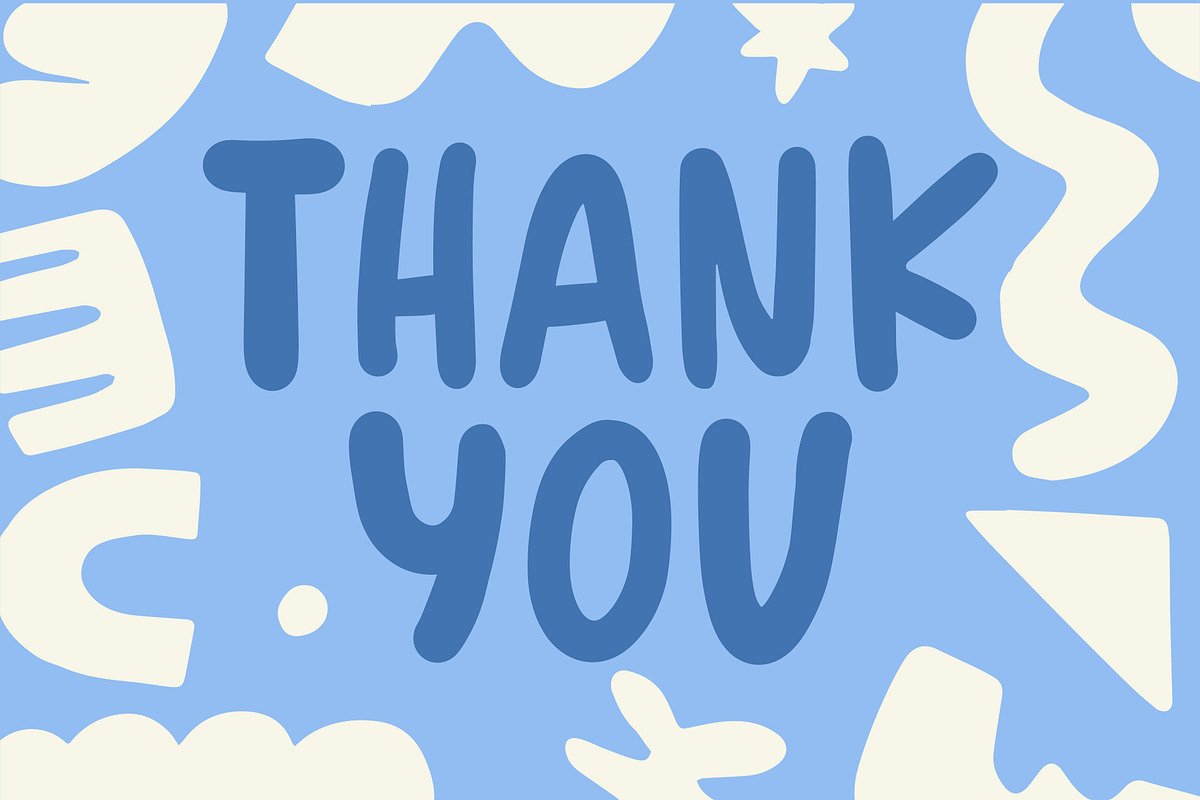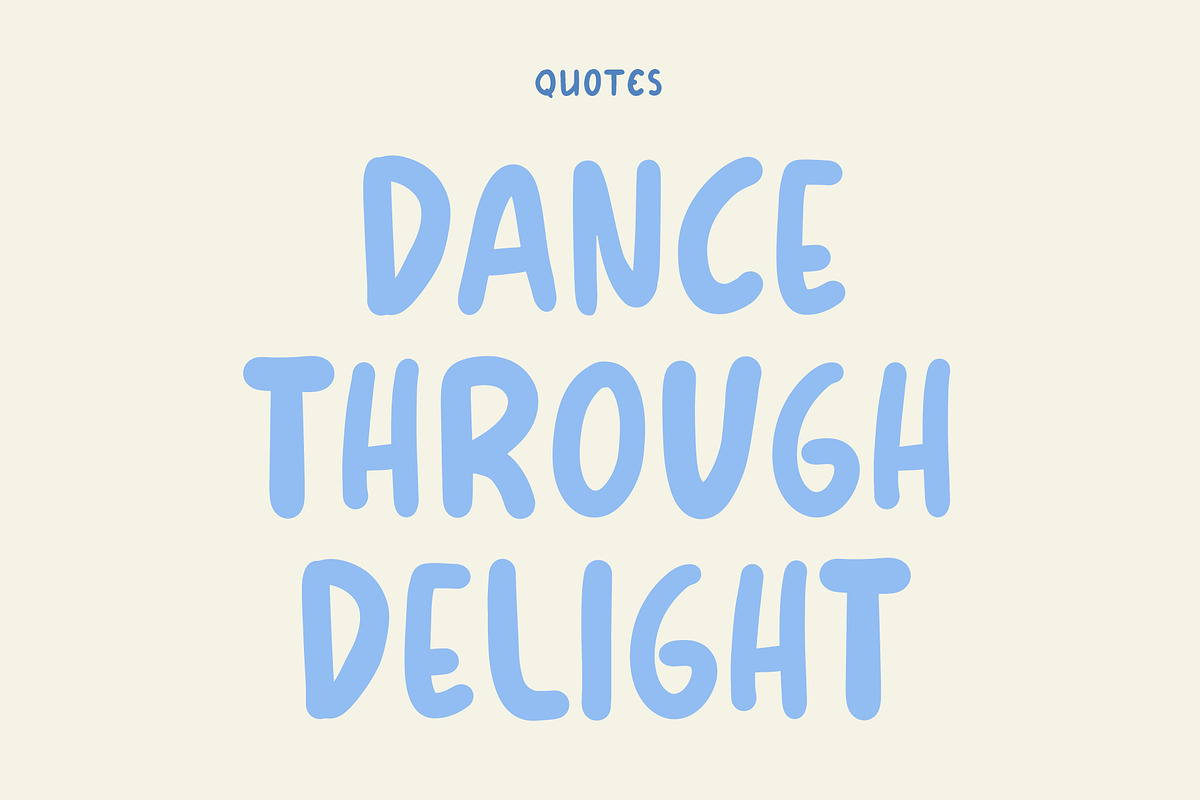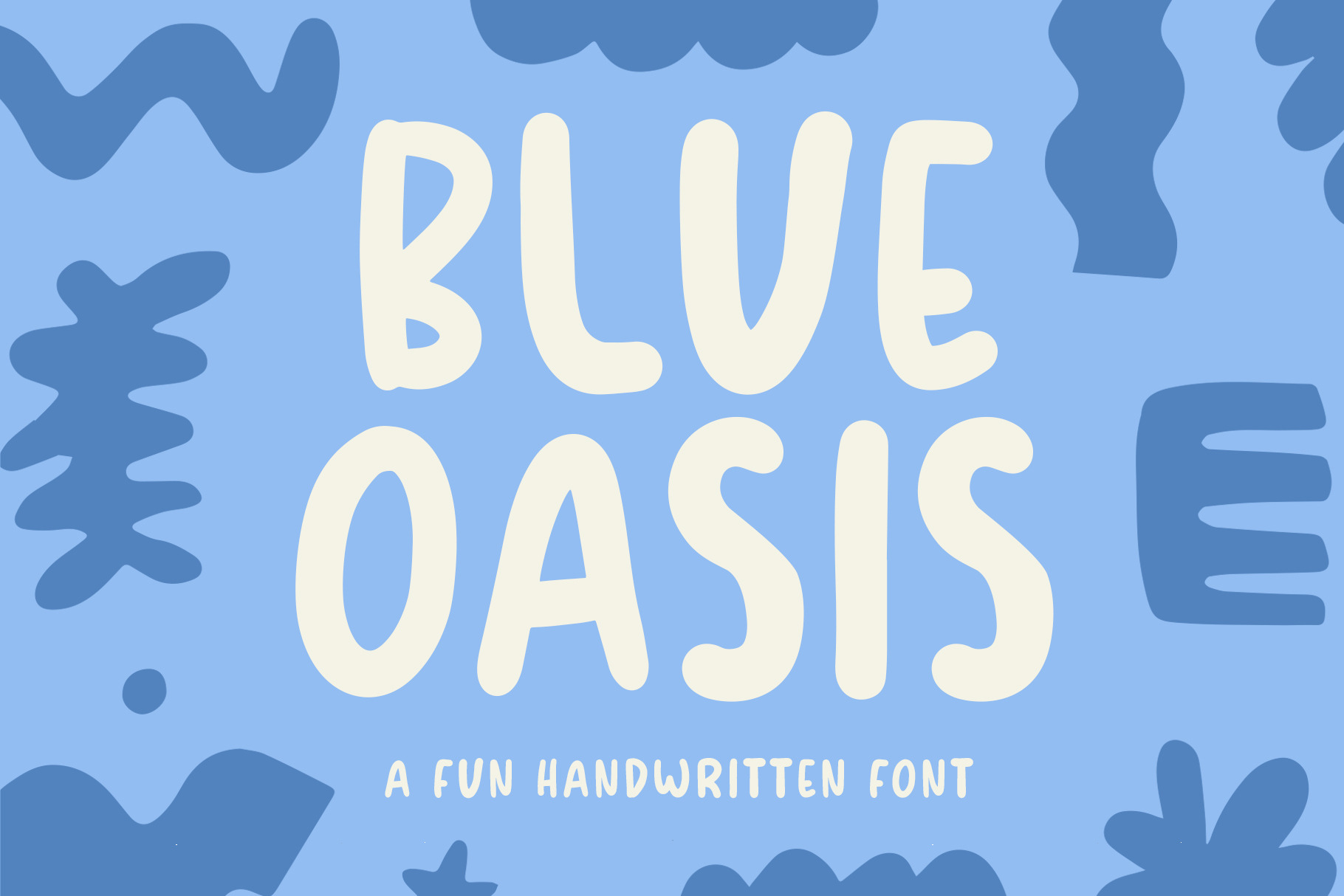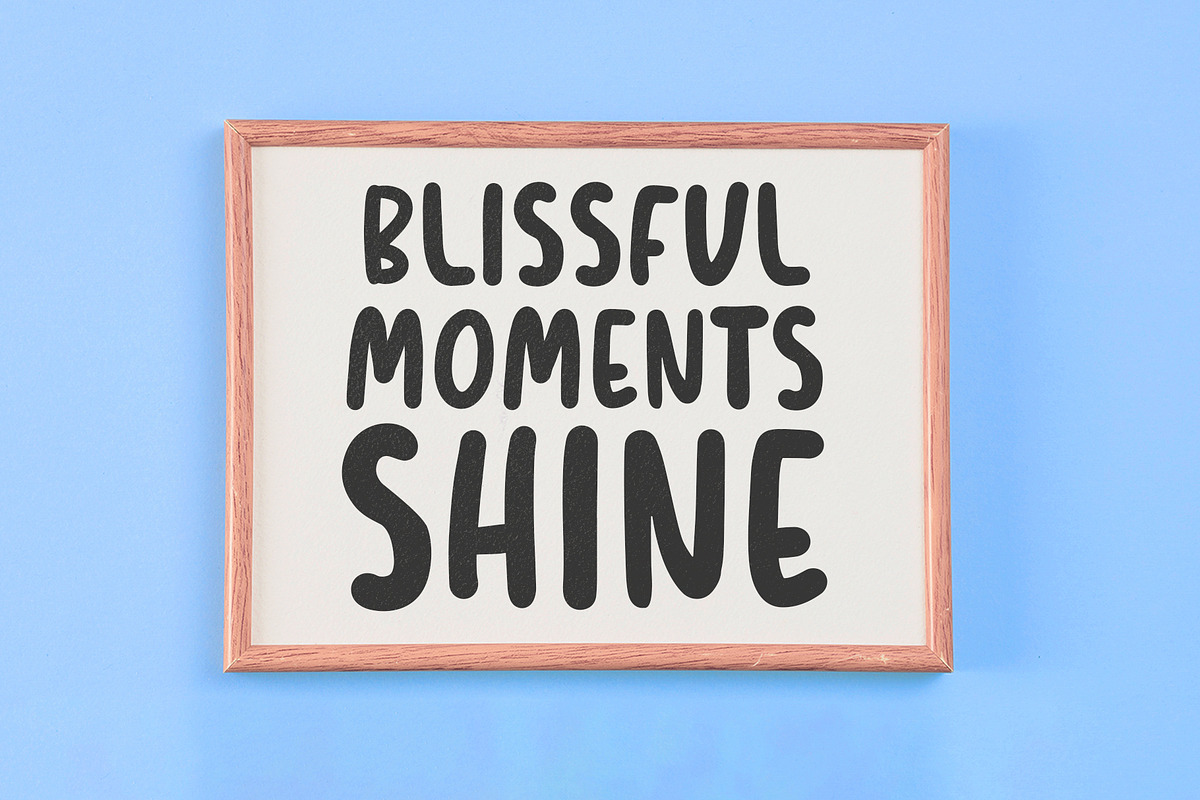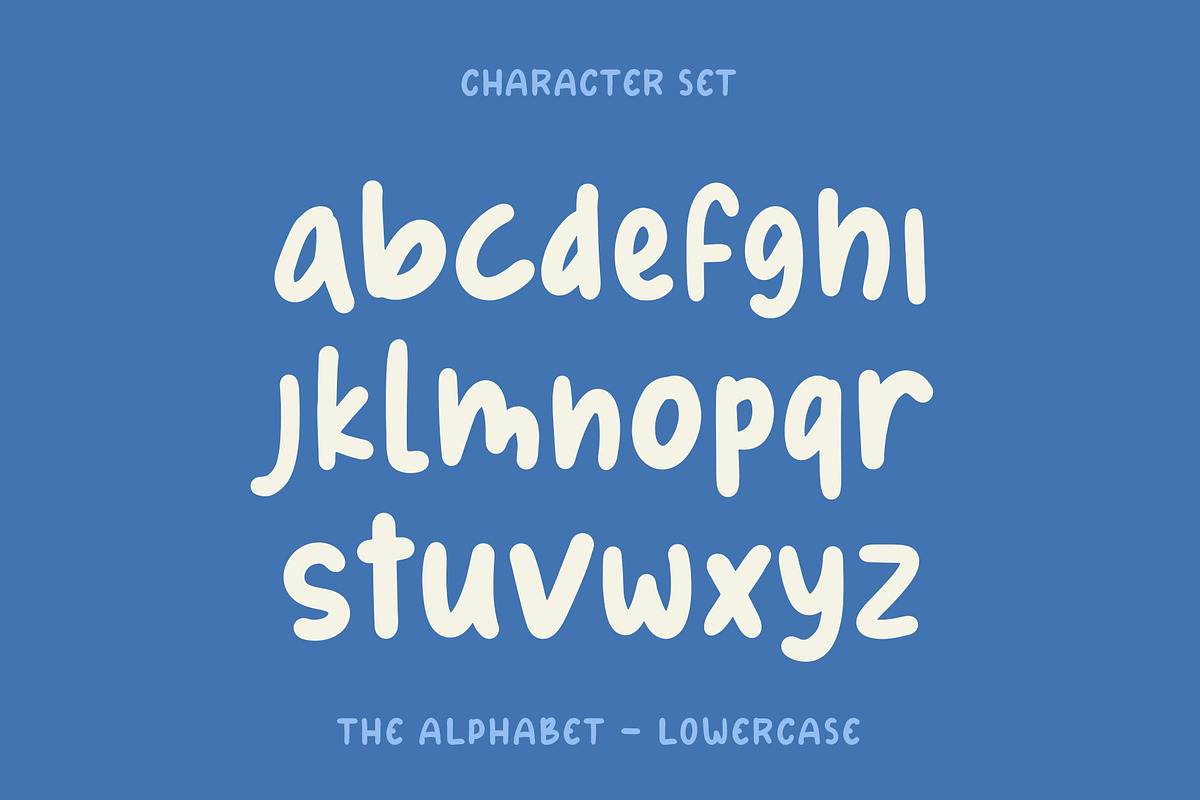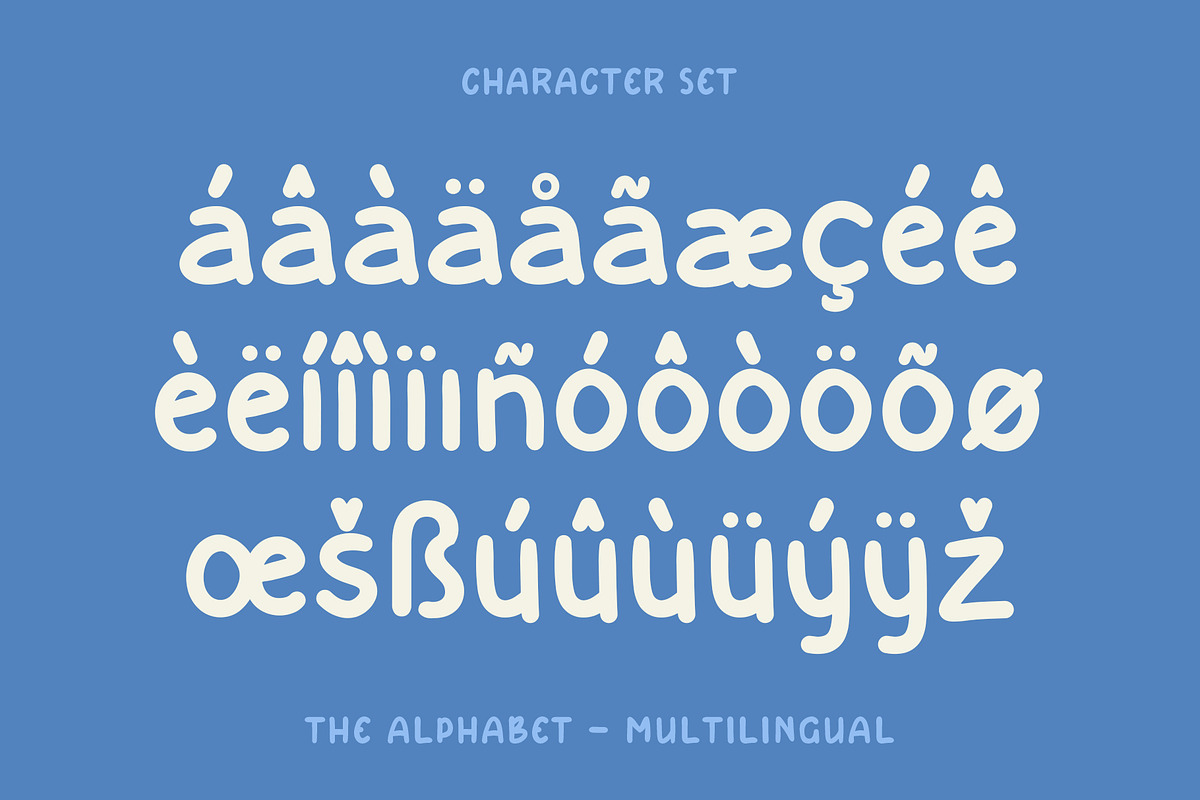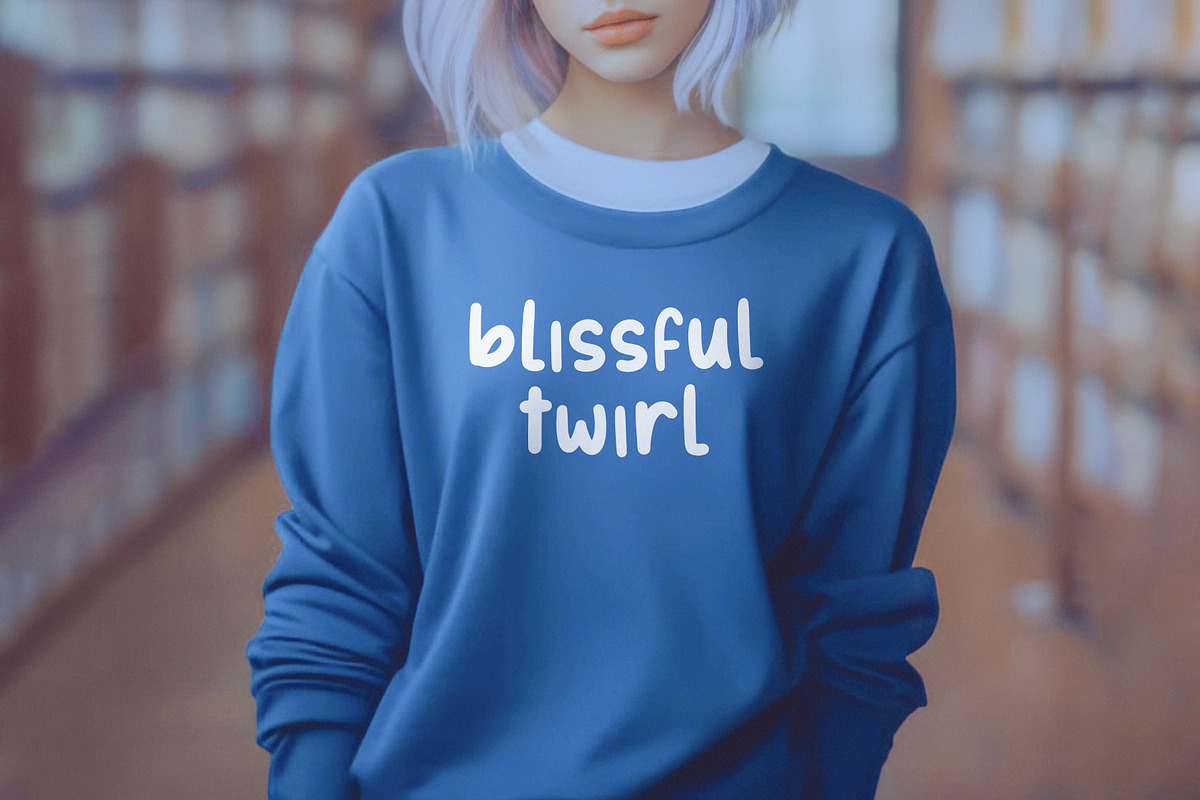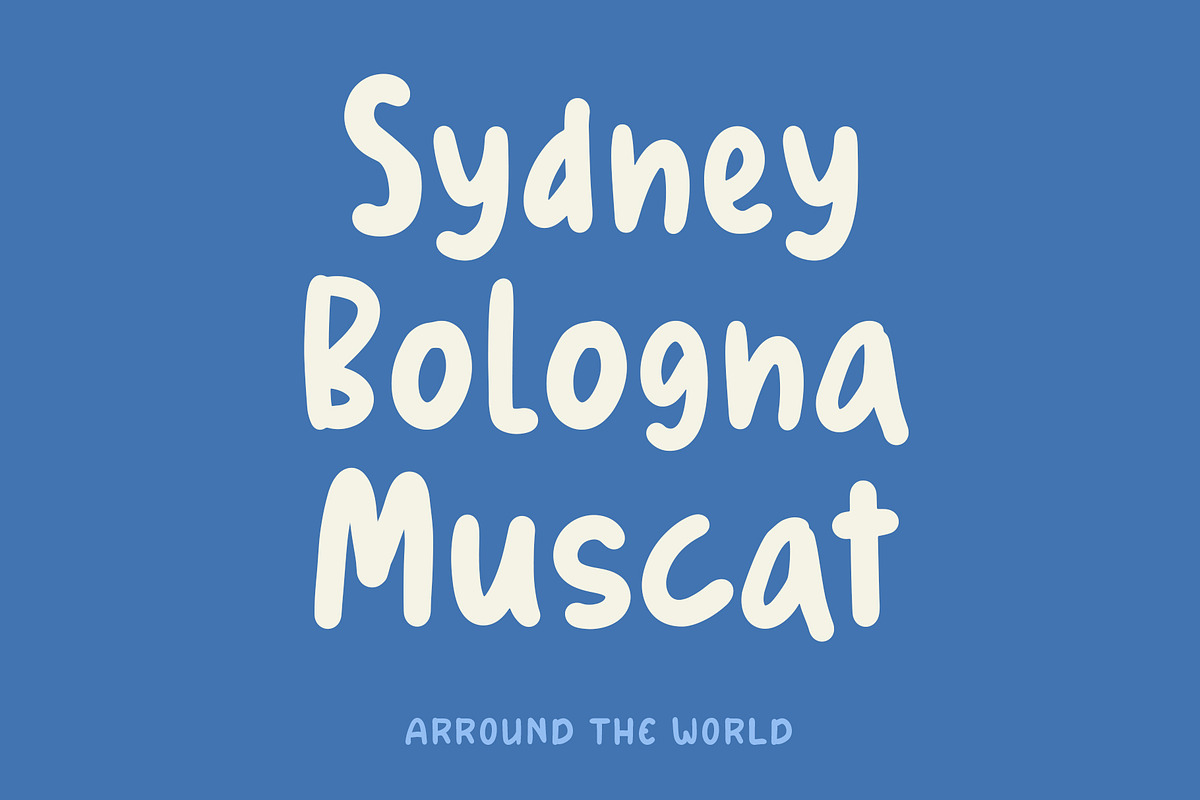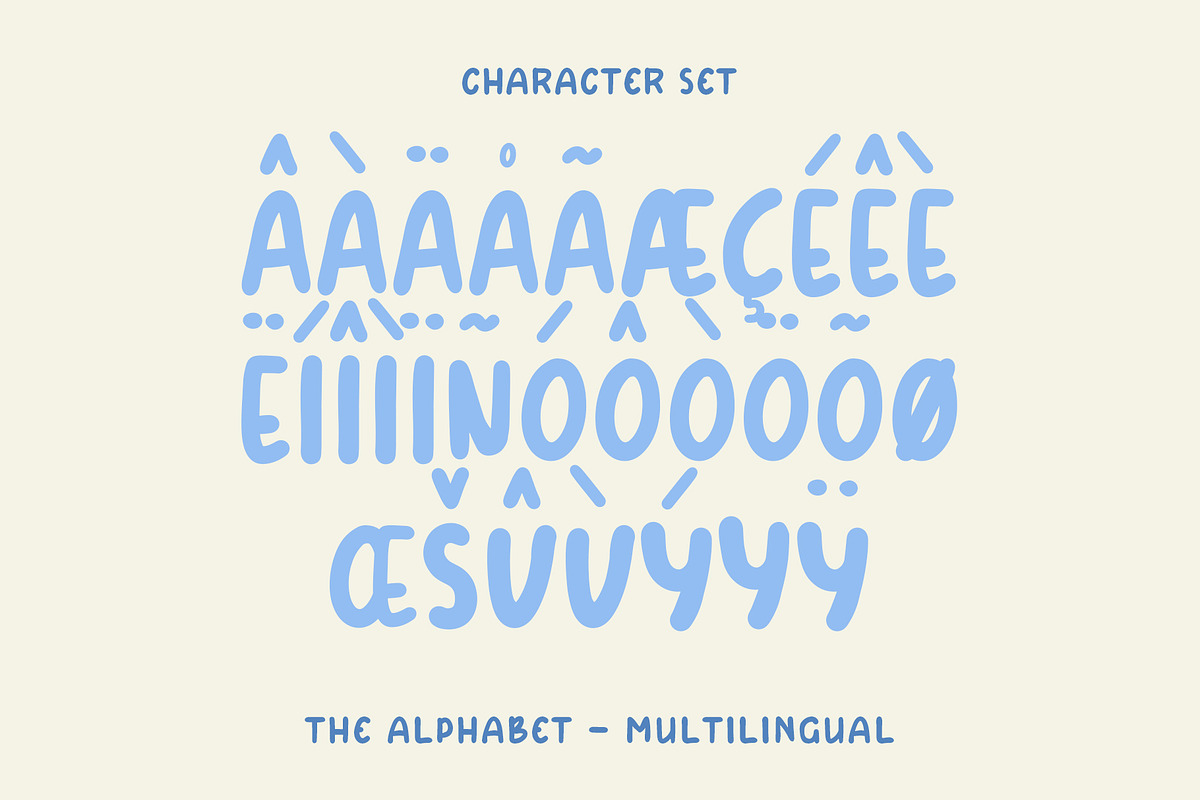
Blue Oasis - Handwritten Font
Blue Oasis is a whimsical and playful font that effortlessly combines the charm of handwritten script with the lightheartedness of bubble lettering. Its rounded and fat letterforms create a friendly and approachable feel, making it an ideal choice for various creative endeavors. This typeface available in SVG format, compatible with advanced tools such as Cricut and Glowforge, and for use in Procreate.
Whether used in invitations, posters, or branding materials, Blue Oasis adds a touch of personality and warmth to any design, making it a delightful choice for those who want to infuse their work with a sense of fun and creativity.